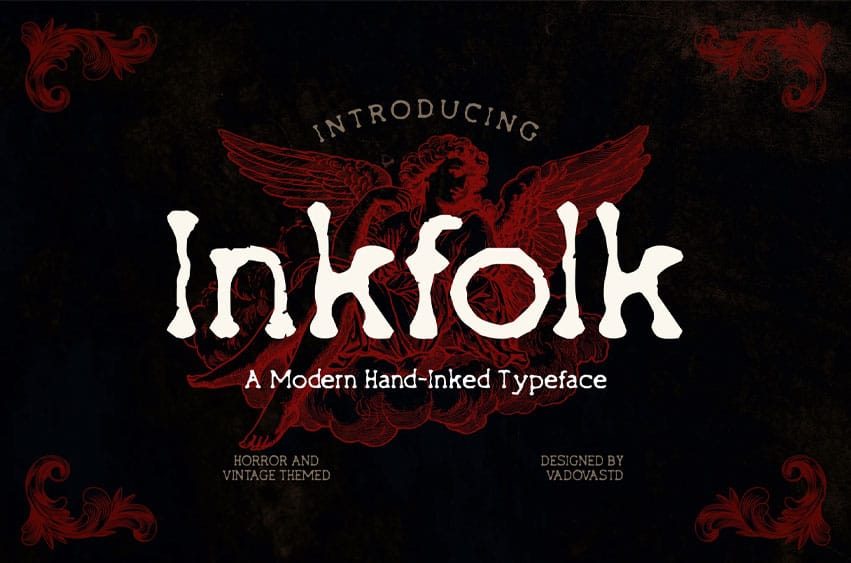
Inkfolk Font is a hand-inked serif typeface that merges gothic drama with modern flair. The font is filled with old-world energy, invoking medieval scripts and vintage book covers while staying crisp enough for contemporary use. With textured strokes and organic imperfections, Inkfolk breathes life into any design that needs narrative strength, mystery, or emotional gravity.
It’s built for visual storytelling—perfect for book covers, fantasy-themed branding, horror movie posters, and historical editorials. Inkfolk has a high-contrast, handcrafted serif structure that instantly commands attention. The letterforms are deeply expressive, with a raw, artistic feel that makes it ideal for genres involving folklore, mythology, thriller, or period-inspired themes. The slight unevenness adds a visceral texture that designers crave when creating immersive, atmospheric experiences.
Inkfolk Suitable for Dark fantasy book covers, Supernatural or mystery-themed posters, Gothic branding & product labels, Vintage-inspired logos, Historical drama packaging, Horror novel titles, Art exhibition promotions, Tattoo & alternative culture merchandise, Candle or apothecary packaging, RPG game titles and interfaces, Editorial layouts with a dark tone, Metaphysical product branding, Occult or tarot-related content, Retro rock or metal band visuals, and Theatrical event promotions.